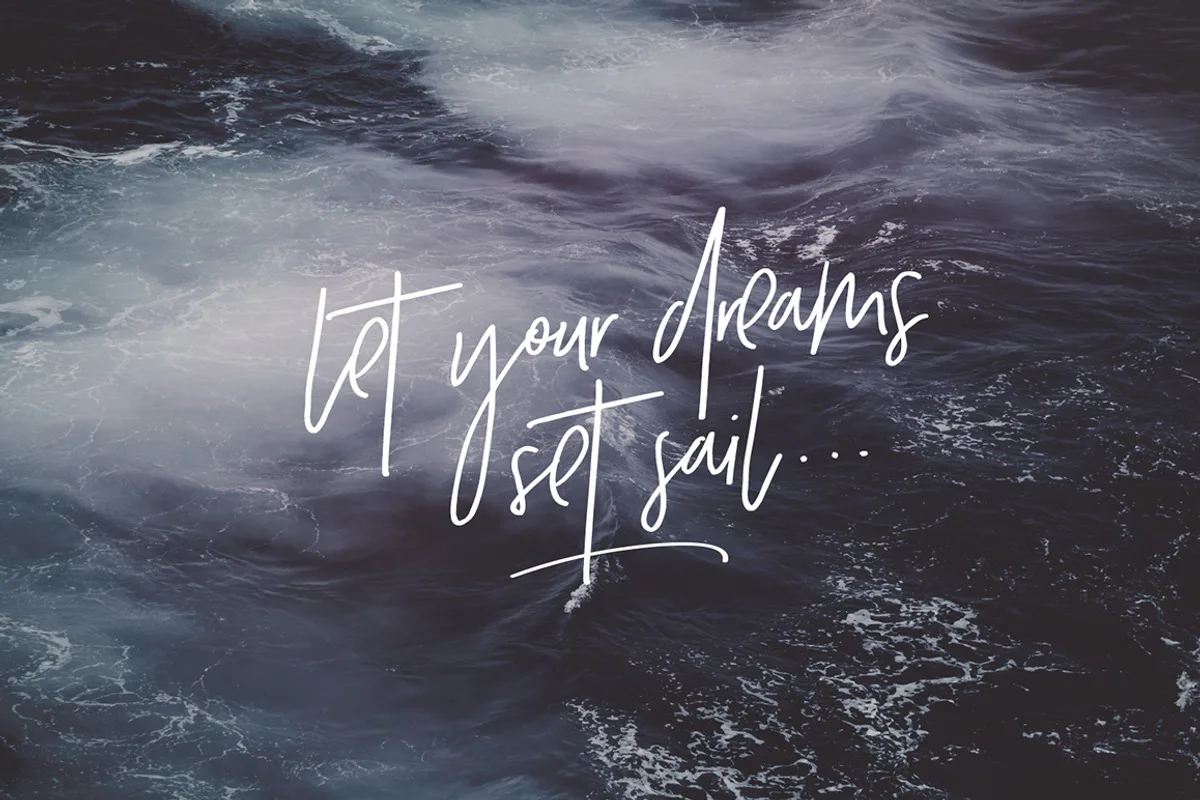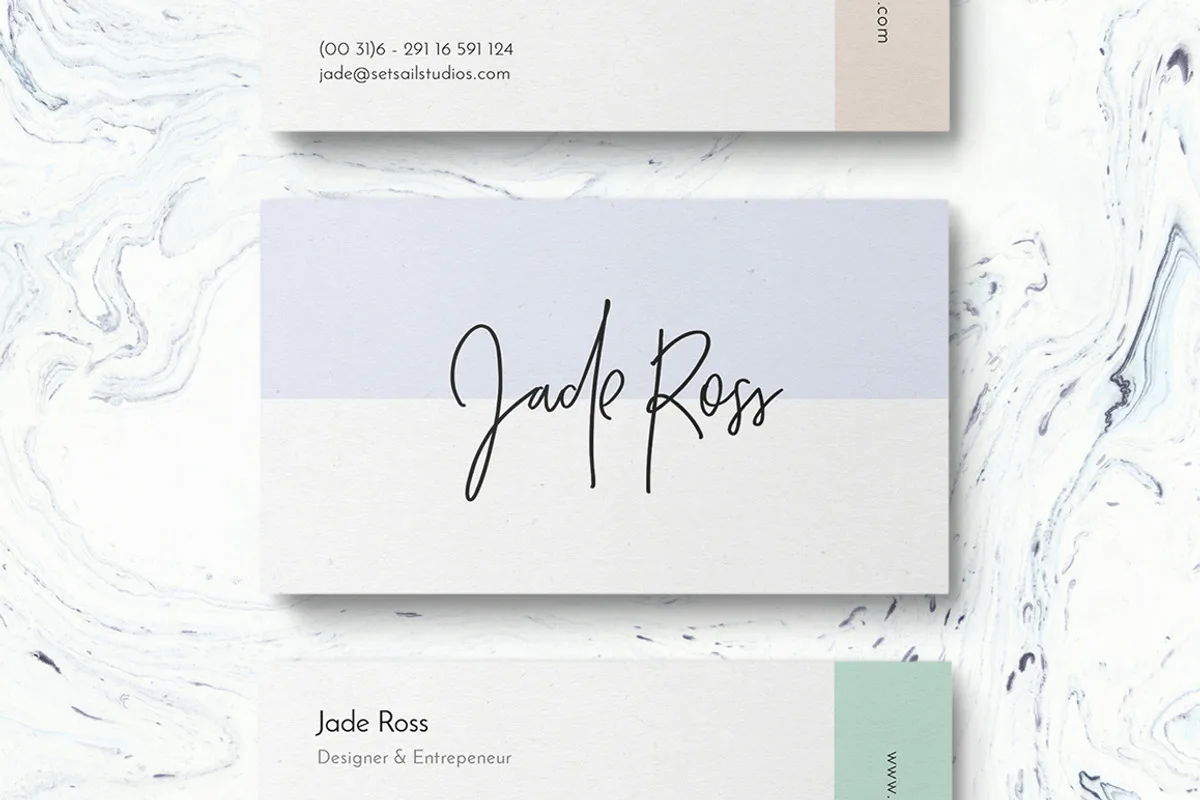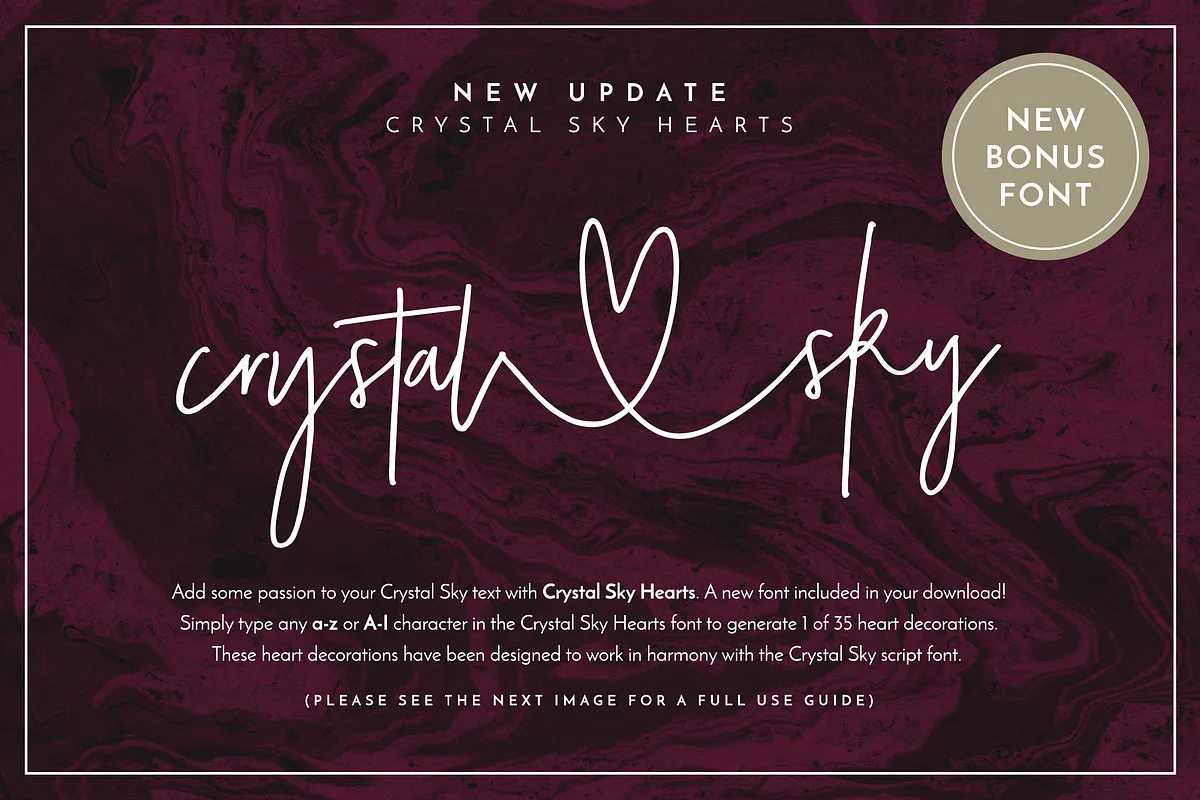
Crystal Sky is a clean & modern signature-style script font set, perfect for creating authentic hand-lettered text quickly & easily. With exaggerated strokes and an extra bouncy baseline, Crystal Sky has an unmistakable charm; perfect for logos, wedding stationery, cards, gift designs, product packaging and handwritten quotes.
New Update: Crystal Sky Hearts! Add passion to your Crystal Sky text with Crystal Sky Hearts, a new font included in your download. These bonus designs add a beautiful, flowing decorative heart at the beginning, middle, or end of your Crystal Sky Script text with a single click.
Lowercase Alternates • Crystal Sky includes a complete alternate lowercase glyph set, accessible by enabling “Stylistic Alternates” in software with OpenType capabilities. For those unable to access alternates this way, a separate font file, Crystal Sky Alt, is included—just install it as usual and select it in your text tool.
All-Caps Version • Script fonts can be tricky for all-caps text, so Crystal Sky provides a separate set of A–Z letters designed to work harmoniously together. Use these when you want to hit the caps lock and go bold.
Bonus Doodle Pack • Enhance your designs with a bonus vector pack containing 32 hand-drawn doodles. These are the perfect companion to Crystal Sky, adding lighthearted fun to your projects.
New! Crystal Sky Hearts • Install this as a separate font and type any a–z or A–I character to generate one of 35 heart decorations designed to pair beautifully with the Crystal Sky Script font. (Refer to the included guide for usage details.)
Large Glyph Set • Crystal Sky offers an extensive glyph set, including punctuation, numerals, multilingual support, ligatures, and additional alternate glyphs for select lowercase characters.